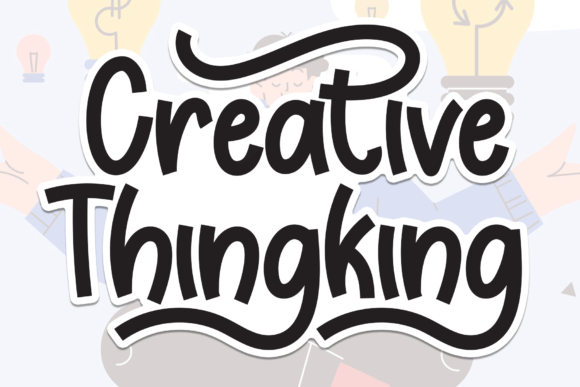
The Spark of Creativity
Have you ever been struck by the perfect idea at 3 am, only to find yourself scrambling to jot it down before it slips away? For many creatives, this is a familiar experience. The rush of inspiration, the thrill of bringing a new concept to life – it’s a feeling that never gets old. And what’s the first step in capturing that magic? Choosing the right tool to express it.
Enter the Creative Thingking Font, a stunning handwritten font designed to elevate your projects to new heights. With its elegant, calligraphic influences and modern twist, this font is the perfect companion for any creative journey. Whether you’re a designer, artist, or writer, the Creative Thingking Font offers a fresh and sophisticated way to bring your ideas to life.
Creative Thinking Font Key Features
- Unique Characteristics: Hand-drawn illustrations, creative connections, and abstract shapes
- Font Style: Script, handwritten, and creative font with a unique touch
- Language Support: Multilingual support for over 200 languages, including Latin, Cyrillic, and Greek alphabets
Review: Creative Thinking Font
Overall, I think the Creative Thinking Font is a solid choice for designers looking to add a touch of creativity to their projects. ✨ The font’s unique letterforms and playful feel make it perfect for titles, headings, and other display text.
- Works well in digital formats: The font renders well on screens and doesn’t lose its charm even at small font sizes.
- Great for creative projects: The font’s unconventional design makes it a great fit for projects that require a non-traditional approach.
- Highly legible: Despite its unique design, the font is still very readable, making it a great choice for body text.
However, there are a few limitations to consider. ⚠️ The font may not be suitable for projects that require a more formal or traditional tone. Additionally, the font’s quirky design may not appeal to everyone, so be sure to test it thoroughly before committing to a project.
Overall, I think the Creative Thinking Font is a great addition to any designer’s toolkit. While it may not be perfect for every project, its unique design and high legibility make it a great choice for creative and innovative projects.
Practical Application Guide for Creative Thinking Font
The Creative Thinking Font is ideal for:
- Creating eye-catching headings and titles.
- Adding a touch of creativity to presentations and documents.
- Designing unique and memorable brand identities.
What is the recommended font size and line spacing for optimal readability?
We recommend using the Creative Thinking Font at a minimum size of 12 points and a line spacing of 1.2-1.5 times the font size. This will ensure optimal readability and maintain the unique characteristics of the font. You can adjust the font size and line spacing to suit your design needs, but we recommend keeping it within these guidelines for the best results.